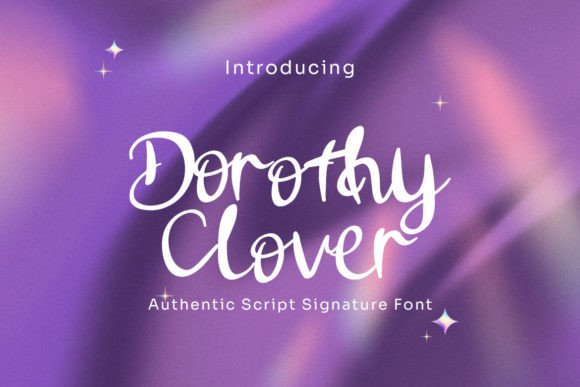
Introducing “Dorothy Clover� – a font that embodies the essence of elegance and sophistication. With its delicate, interconnected strokes and intricate details, Dorothy Clover evokes a sense of beauty and grace, transforming your words into works of art. Its flowing lines and swashes add a touch of luxury and charm to any project, making it the perfect font for special occasions, like wedding invitations, logos, and branding. The PUA encoding allows for easy access to its captivating glyphs and ligatures, allowing you to create stunning designs with ease.
Unleash the romantic allure of Dorothy Clover and bring an air of sophistication to your projects. Whether it’s a heartfelt wedding invitation that exudes elegance, a mesmerizing logo that captivates attention, or a captivating brand identity that leaves a lasting impression, Dorothy Clover is the ultimate choice for creating designs that inspire and evoke emotion.
Experience the beauty and charm of Dorothy Clover today and let your words blossom with grace and elegance. Its exquisite details and versatility will transform your creative visions into captivating realities, leaving a lasting impression on your audience. Embrace the allure of Dorothy Clover and embark on a creative journey where beauty knows no bounds. Your designs are about to reach new heights of elegance and charm.